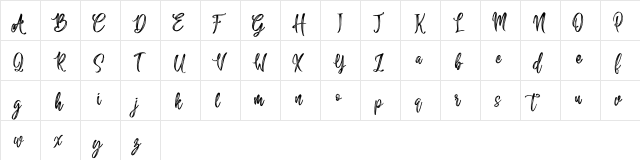
Sailing Heart Regular
| Designer | Donis Miftahudin |
Design Context for Sailing Heart Typeface
Sailing Heart is a composed and adaptable typeface that performs quietly and consistently across a wide range of design contexts.